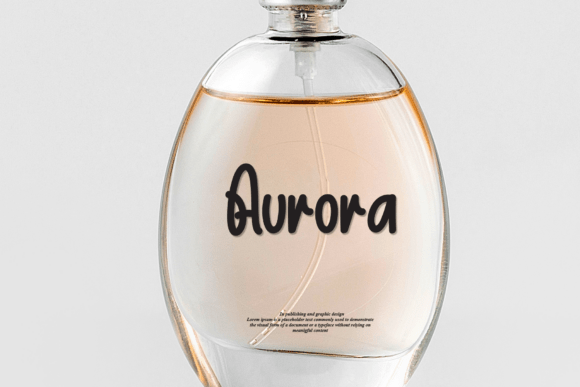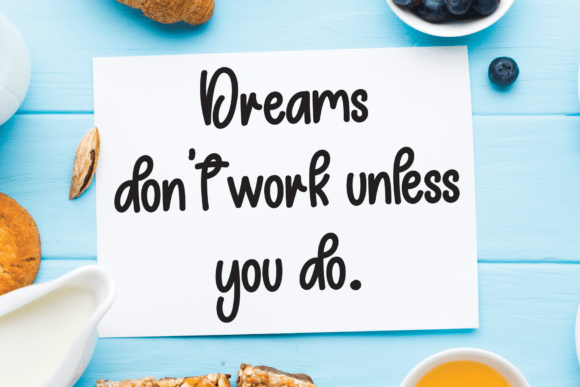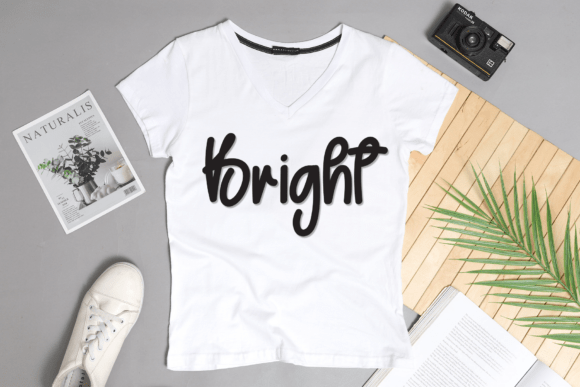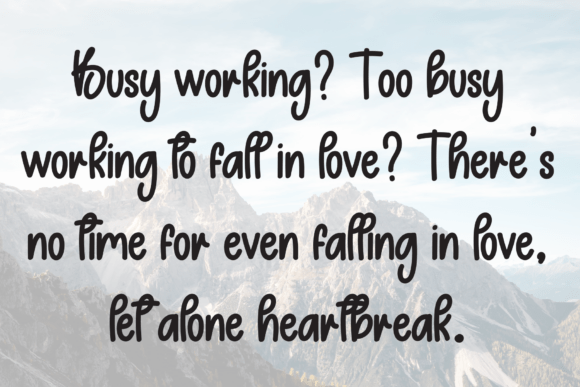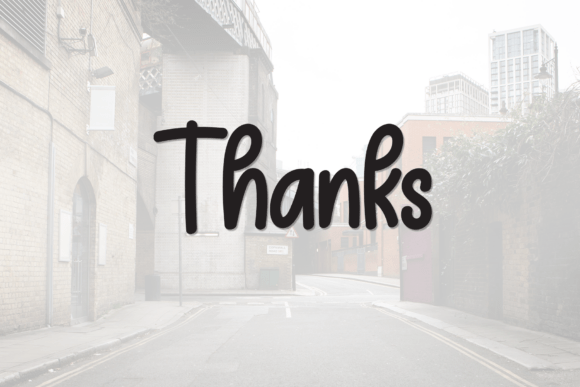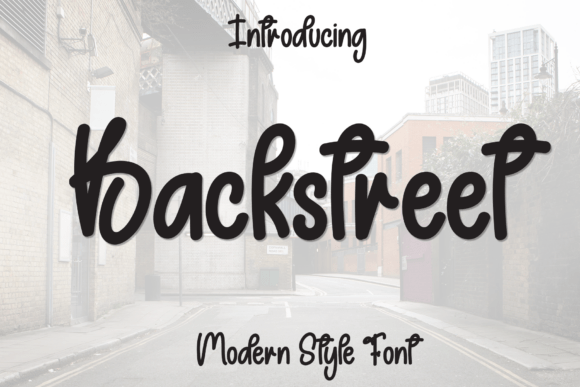
Unleash the Urban Vibe with Backstreet Font
Step into the urban aesthetic with Backstreet, a bold and expressive typeface that captures the raw energy of the city. This Backstreet font is designed with a heavy, hand-drawn stroke that feels like casual marker art or street-style graffiti. The Backstreet typeface is perfect for streetwear branding, music posters, and edgy social media content that needs an authentic, “street-smart” vibe.
The Urban Edge of Backstreet Font
The chunky, interconnected letters of the Backstreet font offer high visibility and a unique rhythm that makes titles feel alive. This distinctive style is reminiscent of urban street art, where bold and daring expressions are a norm. With Backstreet, designers can instantly inject a dose of urban grit into their work, making it perfect for projects that demand an edgy, modern aesthetic.
Perfect for Streetwear and Urban-Themed Projects
The Backstreet typeface is an excellent choice for skate-shop logos, bold YouTube thumbnails, and urban-themed apparel. Its bold, eye-catching style ensures that any message or brand identity stands out in a crowded digital landscape. Whether it’s a streetwear brand looking to make a statement or a musician aiming to promote their next gig, Backstreet font provides the perfect visual shorthand for urban cool.
Design Tips for Maximum Impact
To fully leverage the Backstreet font’s urban vibe, designers can pair it with high-contrast photography or neon colors. This combination amplifies the font’s modern, gritty personality, making any design pop. For instance, using Backstreet for a title against a backdrop of a cityscape at dusk can create a visually stunning effect that captures the essence of urban life.
Crafting Authentic Urban Content
For crafters and designers looking to create authentic urban content, Backstreet font serves as a versatile tool. It can be used for a variety of projects, from DIY urban fashion labels to event posters and social media graphics. The key to authenticity lies in combining the font with imagery and themes that reflect the urban experience. This could include gritty textures, urban landscapes, or lifestyle shots that embody the streetwear or urban culture.
Why Backstreet Font Stands Out
- Bold and Expressive: Backstreet’s heavy, hand-drawn strokes give it a unique, expressive quality that’s hard to ignore.
- Urban Aesthetic: The font’s design captures the raw energy of the city, making it perfect for projects that require an urban vibe.
- High Visibility: The chunky, interconnected letters ensure that messages are clear and visible, even from a distance.
- Versatile: Backstreet can be used across various mediums, from digital content to print materials.
Backstreet font is more than just a typeface; it’s a statement. It embodies the spirit of urban culture and street art, offering designers a powerful tool to convey boldness and authenticity. Whether you’re working on a streetwear brand, a music project, or simply looking to add an urban edge to your designs, Backstreet font is an excellent choice. Its unique blend of grit, style, and readability makes it a versatile asset for any creative project aiming to capture the essence of the city.
Get Creative with Backstreet Font
So, step into the urban aesthetic and let Backstreet font guide your creative journey. Experiment with different pairings, explore its versatility, and push the boundaries of urban design. With Backstreet, the possibilities are endless, and the urban vibe is just a stroke away.